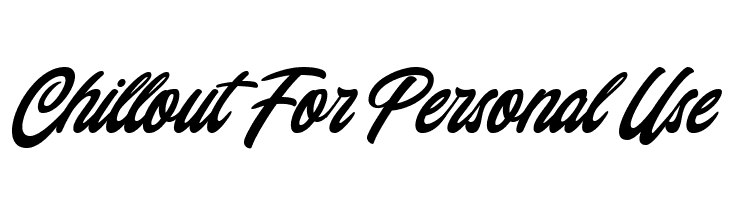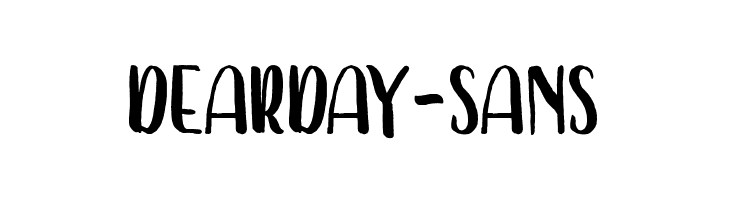
A bold, playful font with rounded edges and a friendly appearance.
An elegant, flowing script font with bold, expressive strokes.
A clean, legible handwriting-style font ideal for educational use.
A futuristic, geometric font with bold, rounded characters and unique cutouts.
A collection of artistic human profile illustrations, not a traditional font.
A bold, flowing script font with elegant, dynamic strokes.
A bold, geometric font with an industrial, block-like design.
A modern, thin font with sleek, elongated strokes and a minimalist design.
A modern, italicized font with a gradient effect and segmented lines.